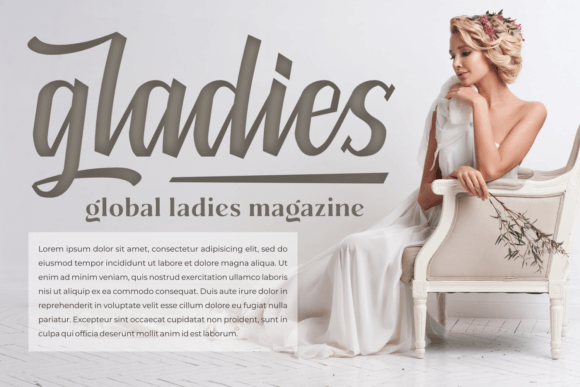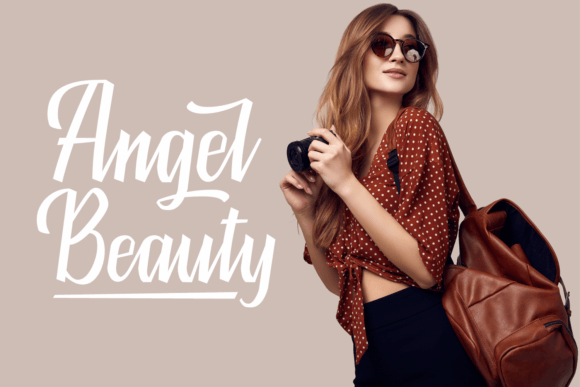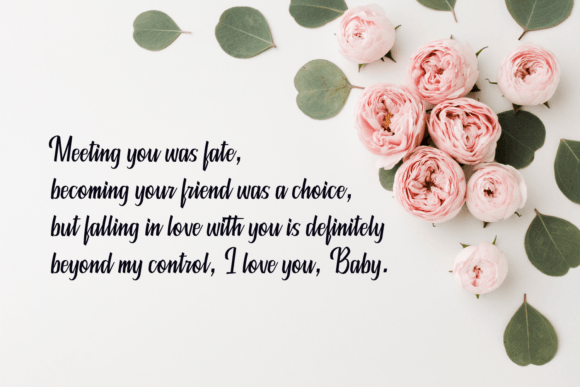
Introduction to Mardin Font
Mardin is a charming and readable handwritten font.
Elevate your designs and crafts with this beautiful font The bold and clean lines make it suitable for various projects – cards, invitations, magazines, logos, quotes, and many more.
Why Choose Mardin Font?
Mardin Font offers exceptional quality and versatility, making it a valuable addition to your design toolkit. Whether you’re creating for personal projects or commercial use, Mardin Font delivers professional results.